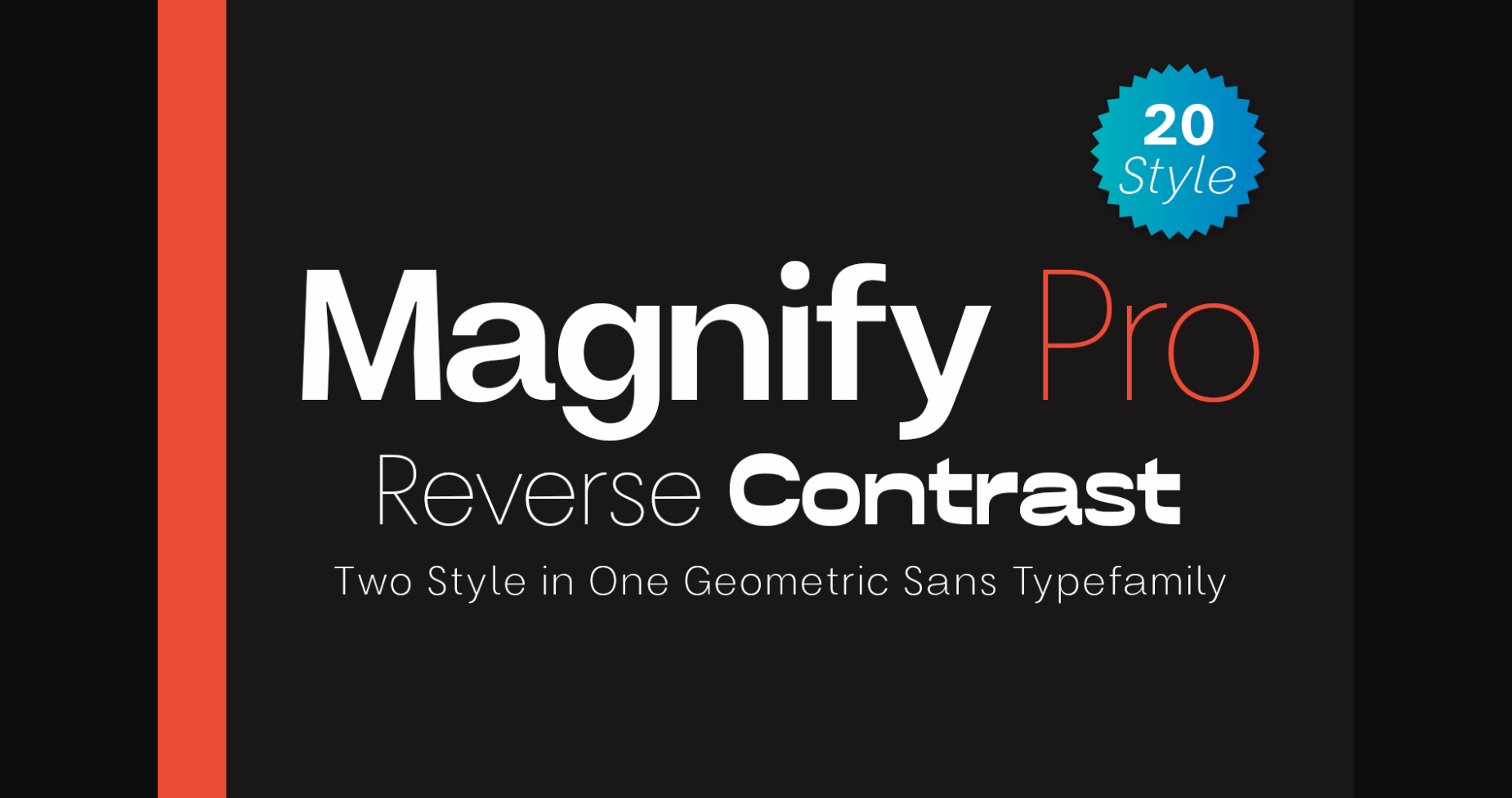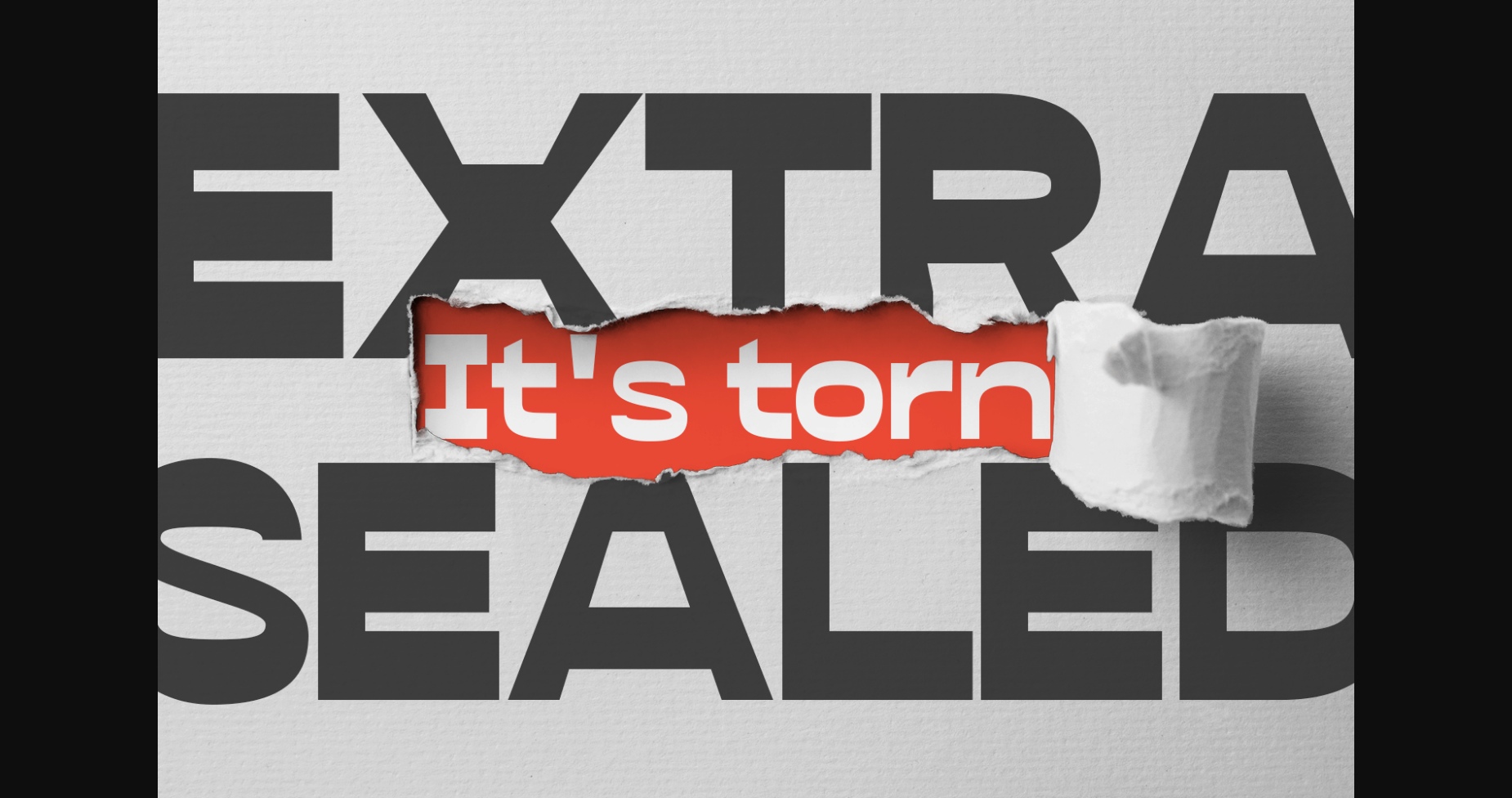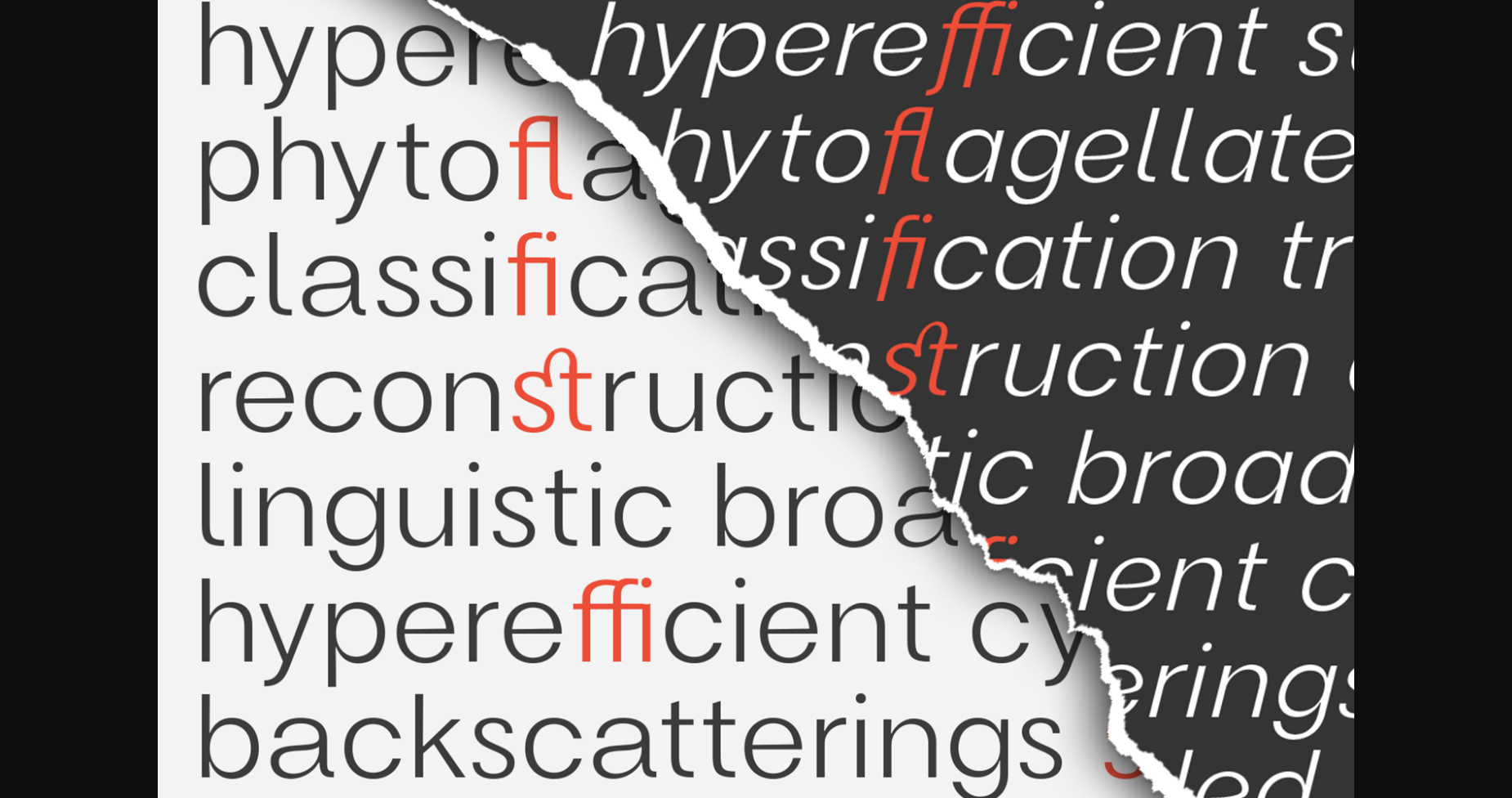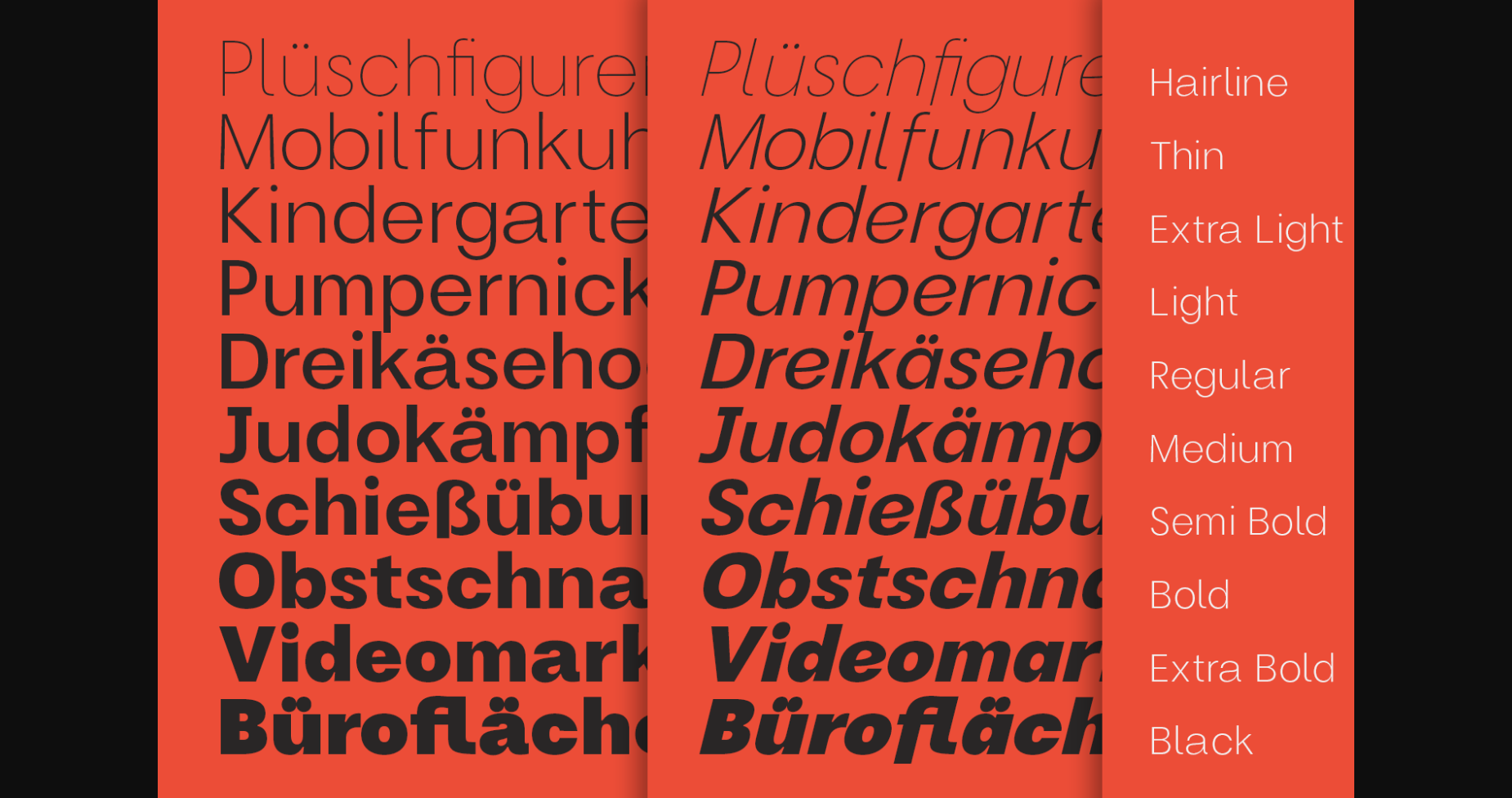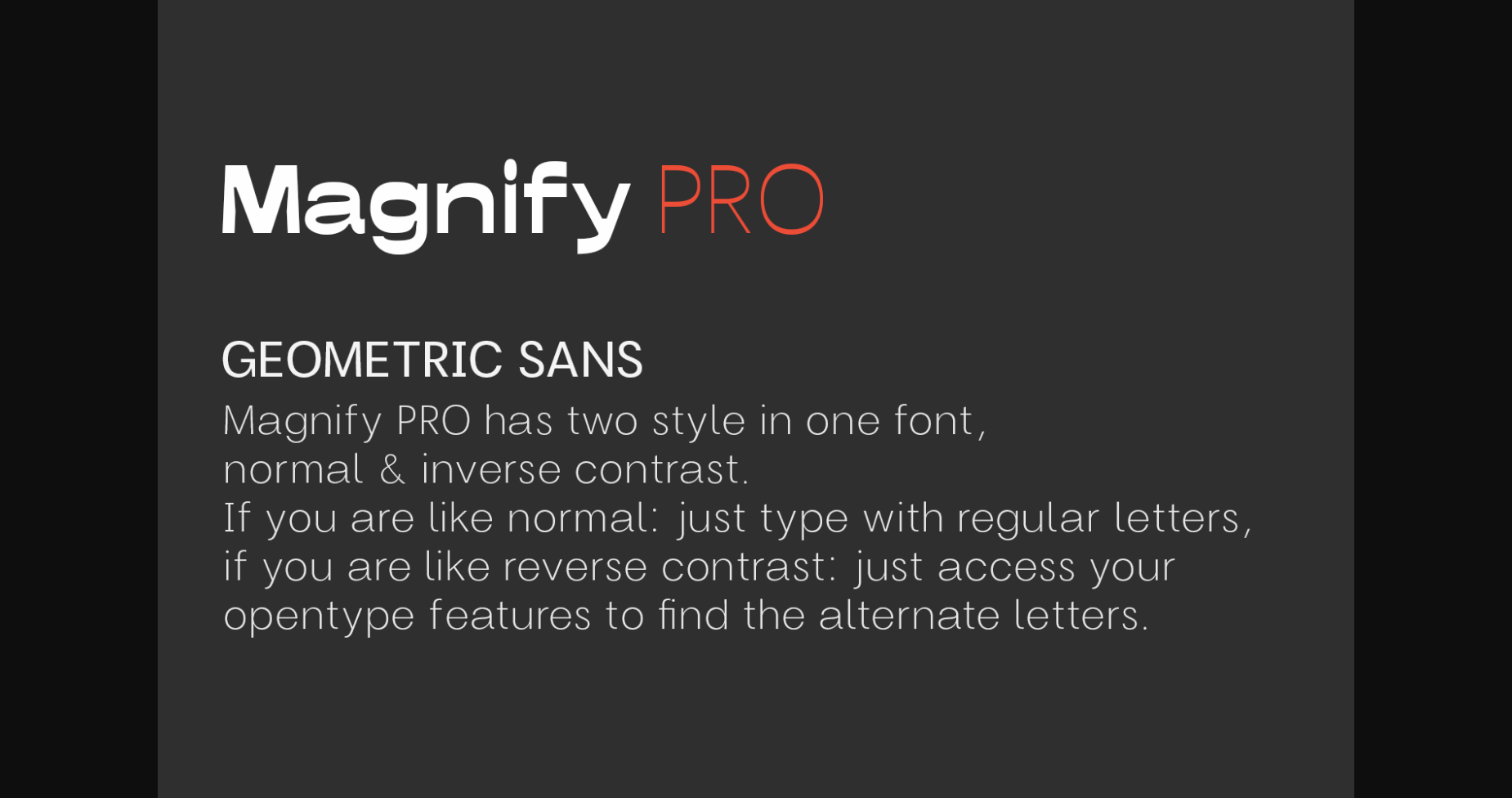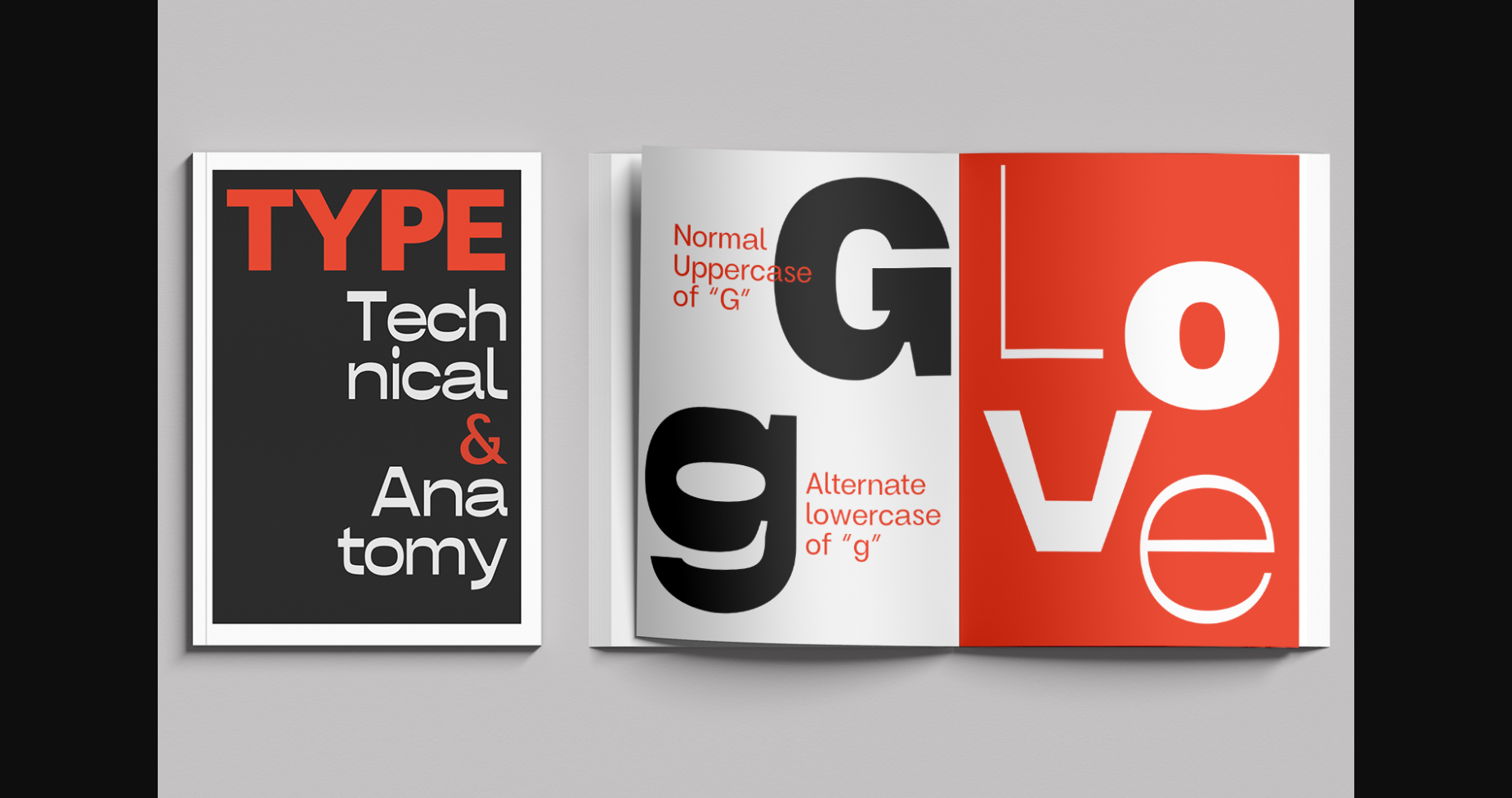
About Magnify Pro Font
Magnify Pro is a sleek and modern sans serif font that exudes sophistication and elegance. Its clean and sharp letterforms are perfectly crafted for titles, headlines, and branding. The font’s minimalist design and generous spacing create a sense of openness and clarity, making it ideal for any project that requires a professional and refined look. Magnify Pro’s sharp edges and geometric shapes give it a contemporary and futuristic feel, while its versatility makes it a top choice for designers seeking a timeless and timeless design.